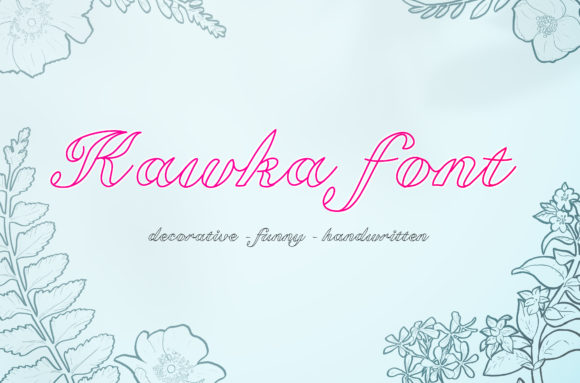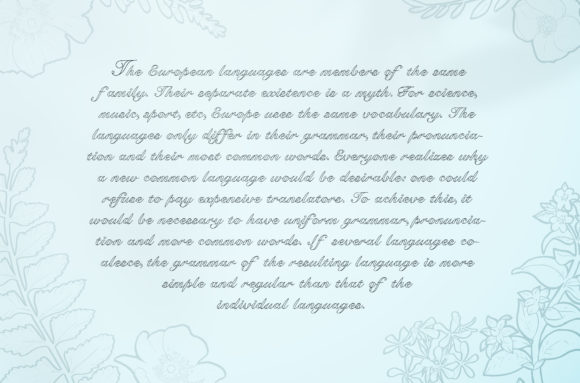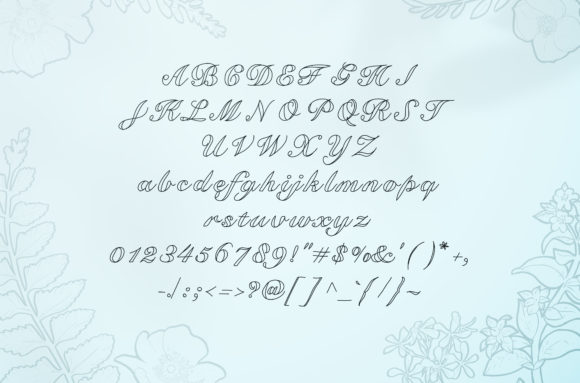
Kawka Font
About Kawka Font
Kawka is a sweet and flowing handwritten font, fitting both formal and non-formal events. Its timeless style will be perfect for creating beautiful wedding invitations, greeting cards, logos and much more.